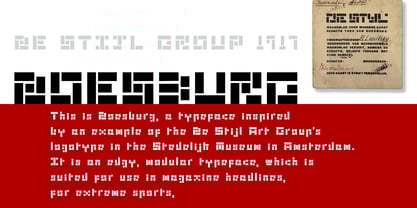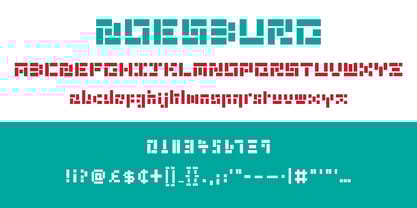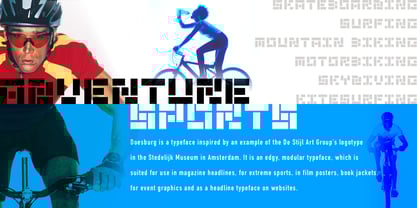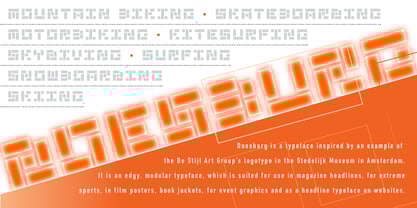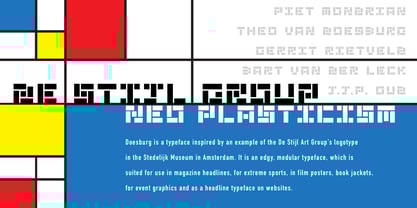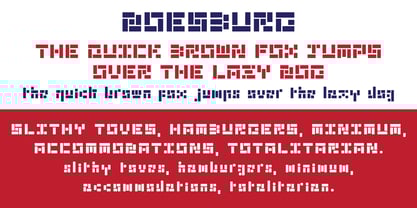
Doesburg
by Rocket 88 Foundry
The Doesburg Font Family was designed by Patrick Molloy and published by Rocket 88 Foundry. Doesburg contains 1 styles. More about this family
Doesburg is a font inspired by an example of the De Stijl Creative Group’s logotype in the Stedelijk Museum in Amsterdam. It is an edgy, modular typeface, which is well suited for use in magazine headlines, for extreme sports, in film posters, book jackets, for event graphics and as a headline typeface on websites. The design adheres to the original creative principles of the Neo-Plasticist De Stijl Group and is named after Theo Van Doesburg, one of the founding members of De Stijl.
Designers: Patrick Molloy
Foundry: Rocket 88 Foundry